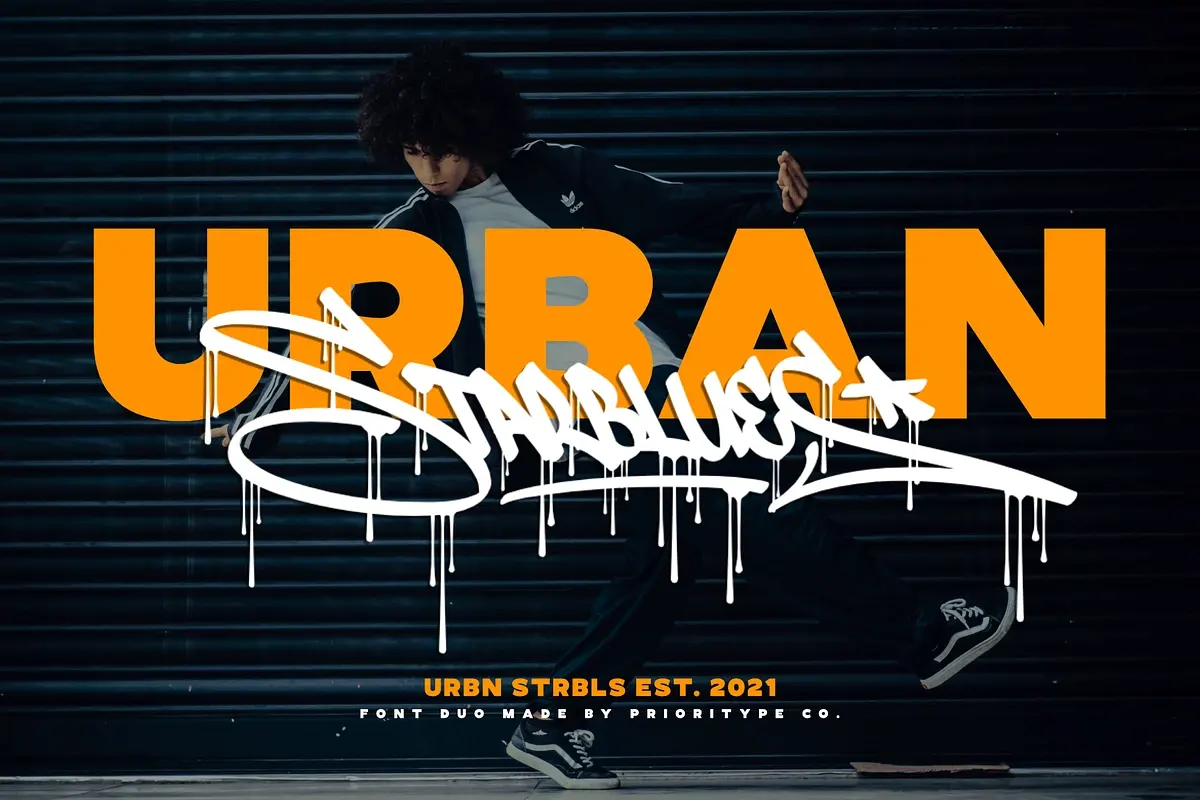
Urban Starblues - Font Duo Free Download
Urban Starblues - Font Duo Free Download is a stylish and versatile font duo that pairs a bold, modern display font with a sleek, elegant script font. Designed to complement each other perfectly, this duo is ideal for logos, branding, posters, social media graphics, and any design project that requires a blend of strong, contemporary elements with a touch of sophistication.
The bold display font adds impact and attention-grabbing appeal, while the elegant script font brings a sense of refinement and personal touch. Together, they create a harmonious balance, making this duo perfect for creative projects that need both flair and professionalism.